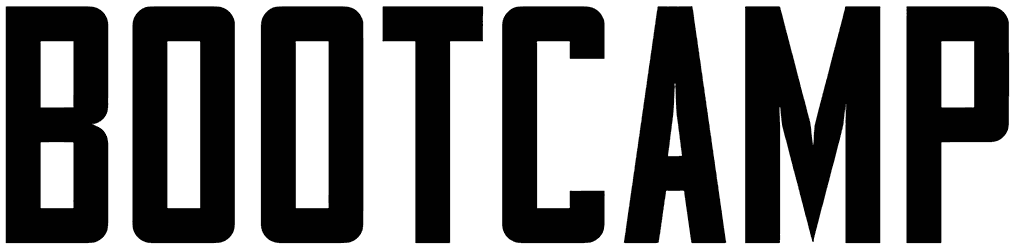
Bootcamp Font
The appearance of your words will be bold and strong when you apply a square font like Bootcamp. With tall sans-serif letters, this military font has the potential to be used for an industrial logo design, army decoratio…
The appearance of your words will be bold and strong when you apply a square font like Bootcamp. With tall sans-serif letters, this military font has the potential to be used for an industrial logo design, army decorations, and so on. Bootcamp font doesn’t support lowercase, but it just needs your creativity to become a part of your project.